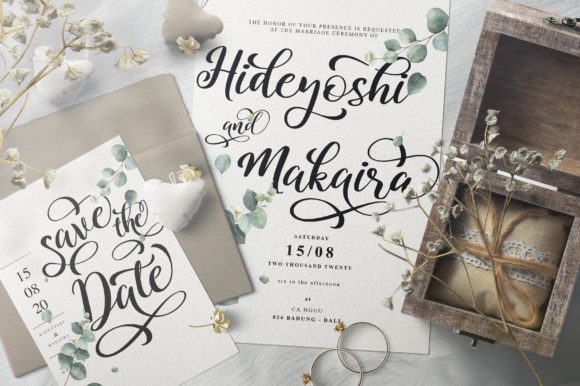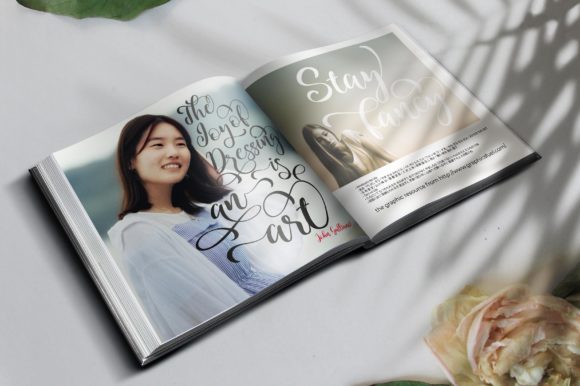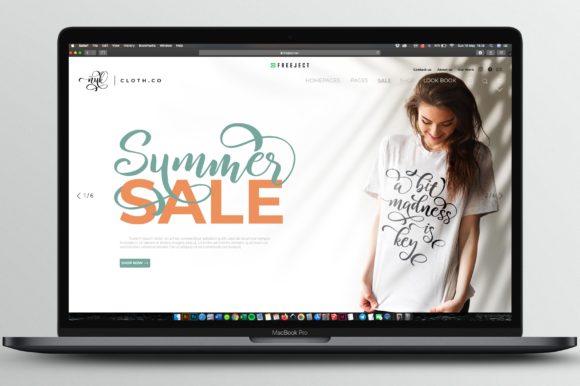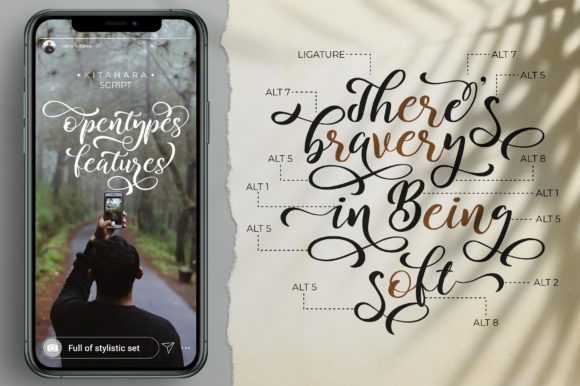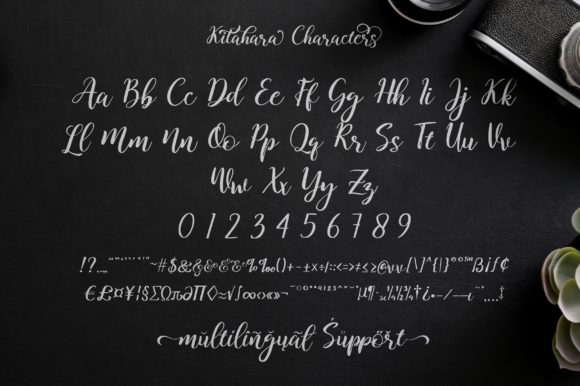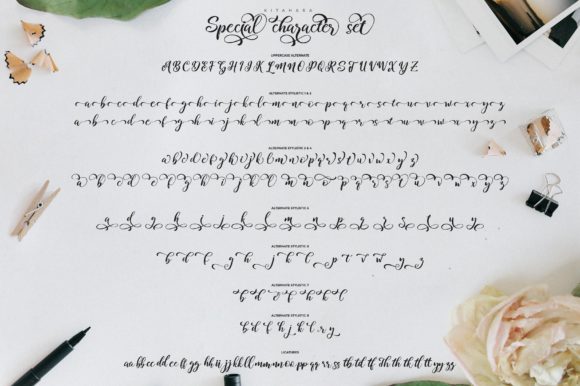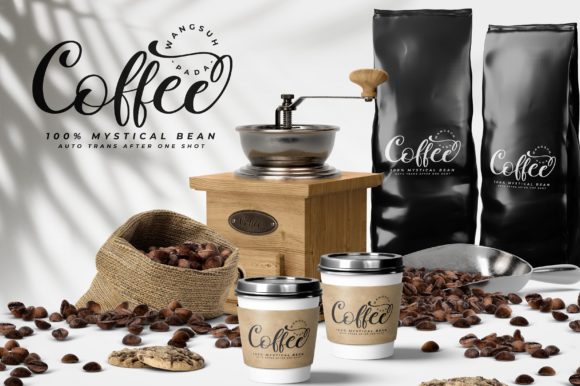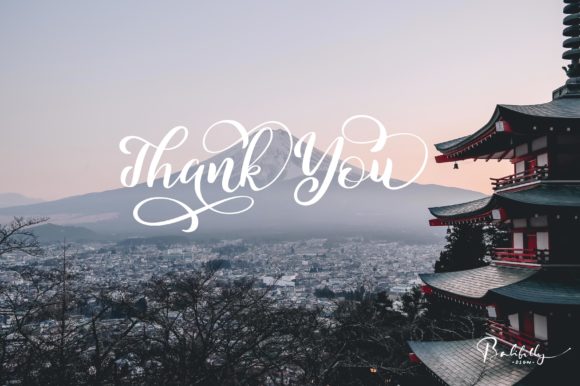
Kitahara Font
About Kitahara Font
Kitahara is a charming and versatile font. This is a beautiful combination of timeless elegance and authentic calligraphy. It features an incredibly classic style, while still keeping a friendly feel. Kitahara is the perfect font for making original and outstanding designs.